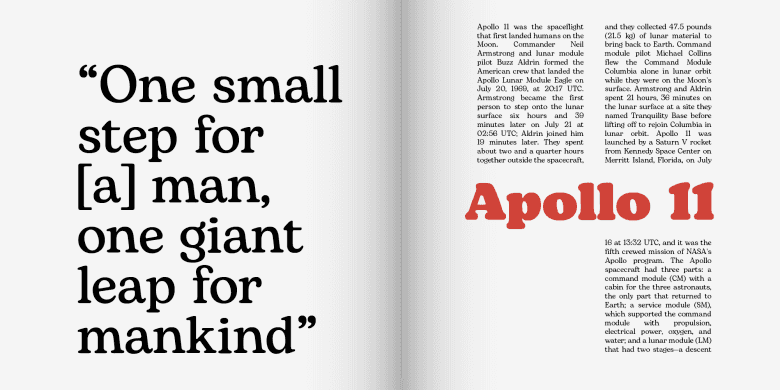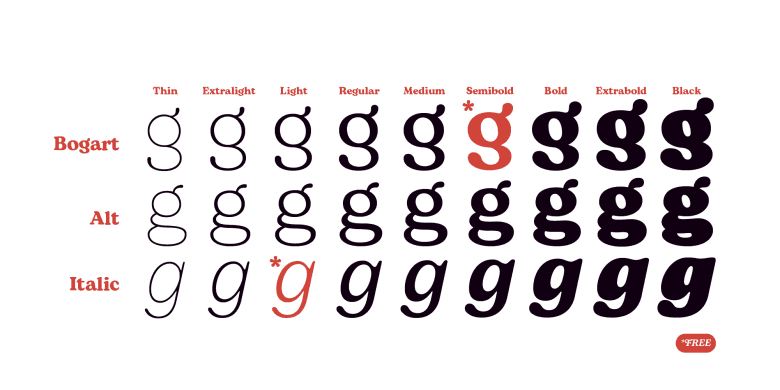
Bogart is a bold elegant font created by Francesco Canovaro for use in any beauty shape, and it has fine and beautiful ligatures that are highly appropriate for logos and brands. Designed in 2020 as a personal contribution to the family of the vintage fat faces inspired by Cooper Black (Oswald Bruce Cooper, 1922), Goudy Heavy Face (Frederic W. Goudy and Sol Hess, 1925-1932), Bogart was widely appreciated at the moment of its release for it could be used even for beauty shapes! An original tribute that was created in 2050.